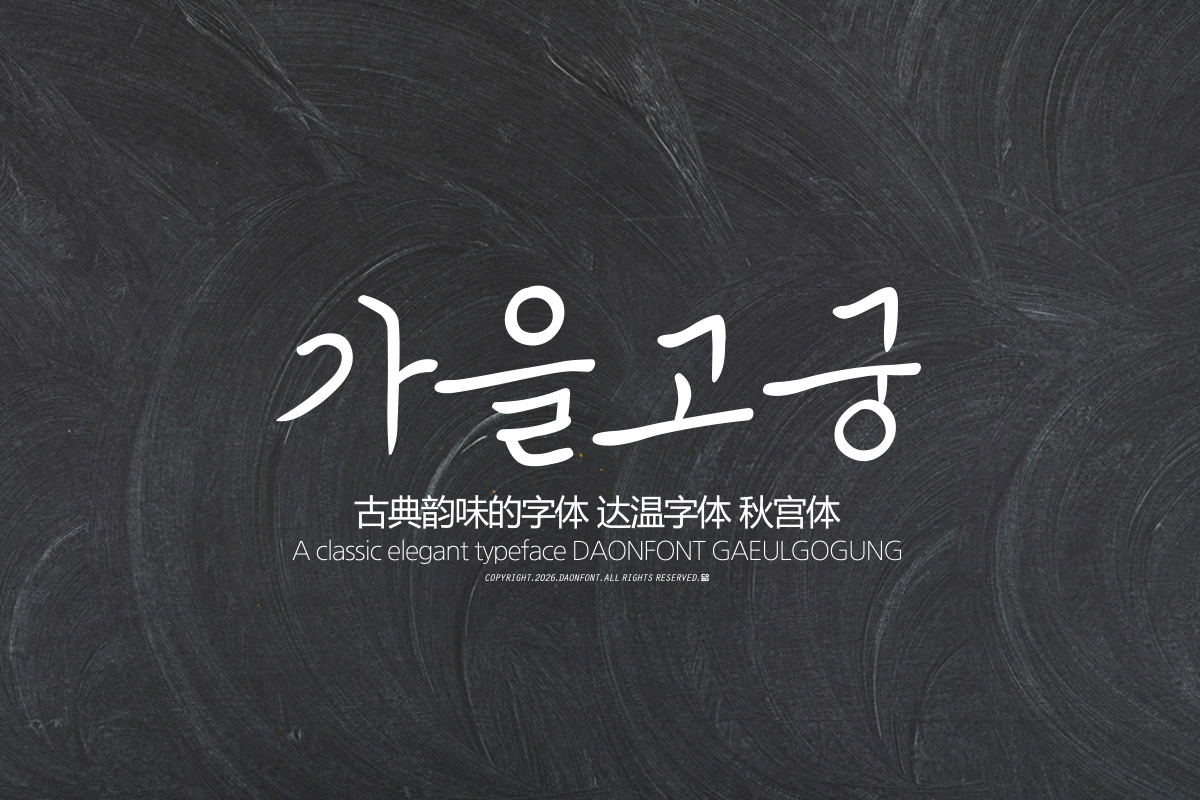
DAON GAEULGOGUNG(B)
'GAEULGOGUNG' is a Hangul typeface that captures an antique and elegant atmosphere. Based on thin yet powerful brushstrokes and a stable character structure, it expresses both traditional sensibility and modern sophistication. While possessing a traditional vibe, it is not overly heavy, allowing for natural use in various design environments.